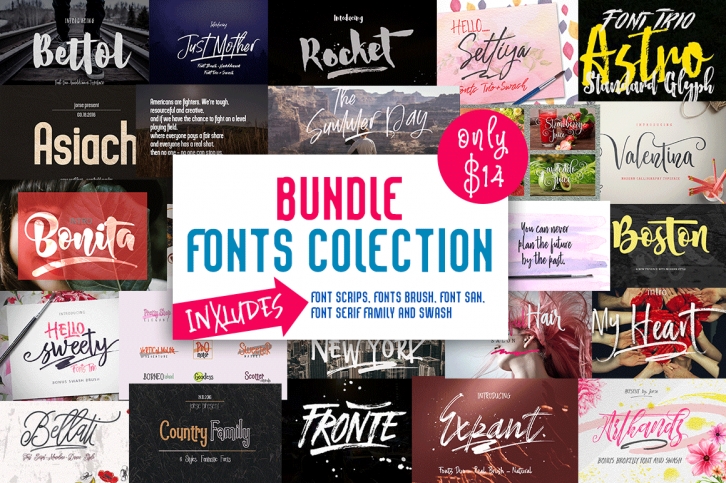
BUNDLE (s Colection) is a gorgeous font that was realeased on December 26, 2017. The font can be used in many style contexts and design environments. Perfect for invitations, magazines, websites, logos, and more! It was designed by roiyani and the file size is 11.89 MB. Thanks for checking out this font!